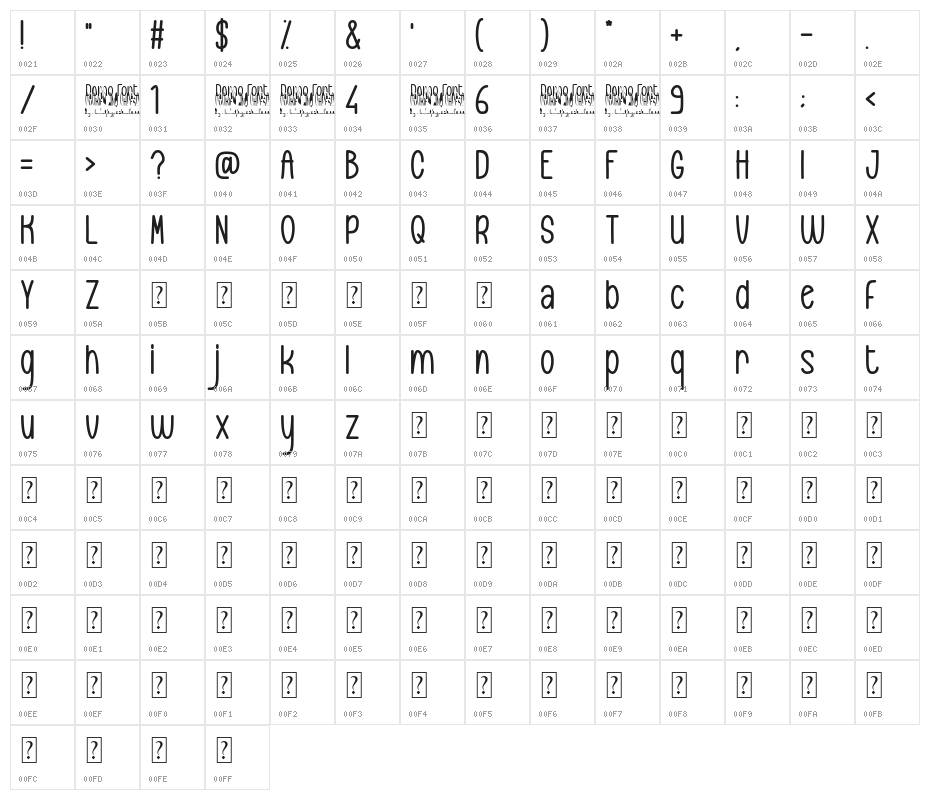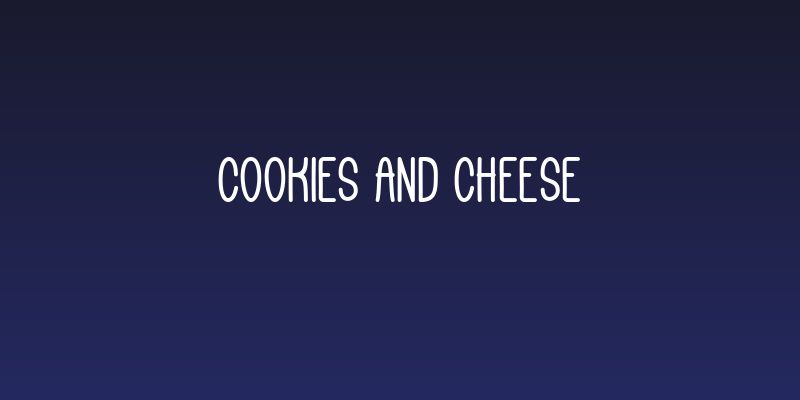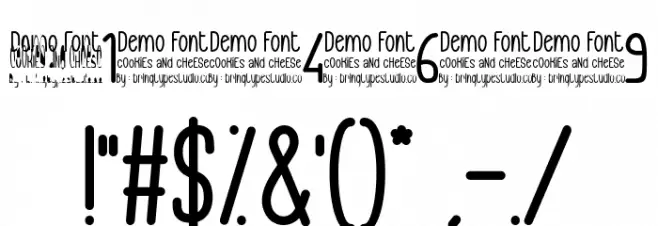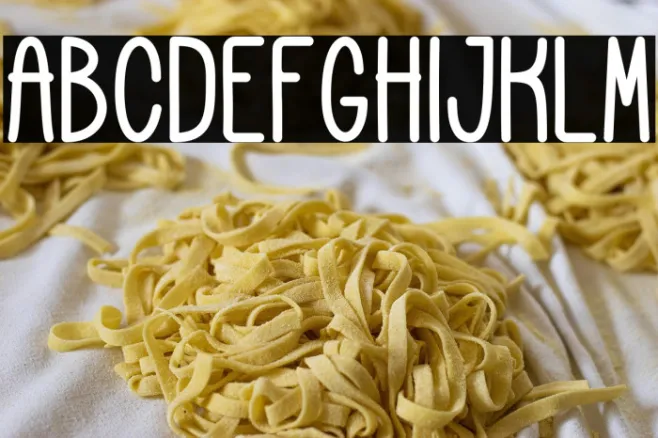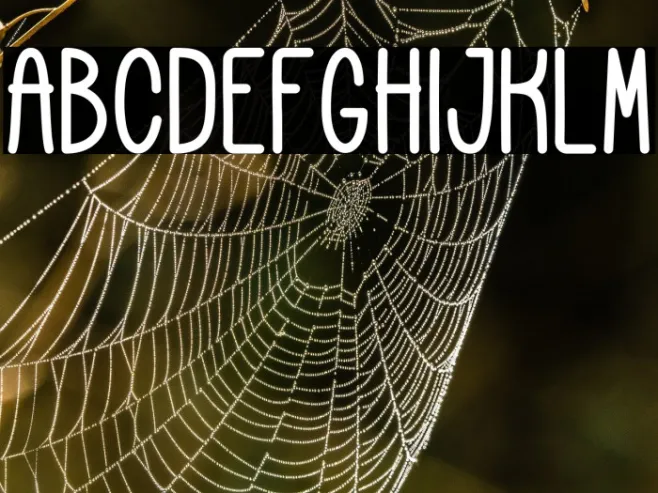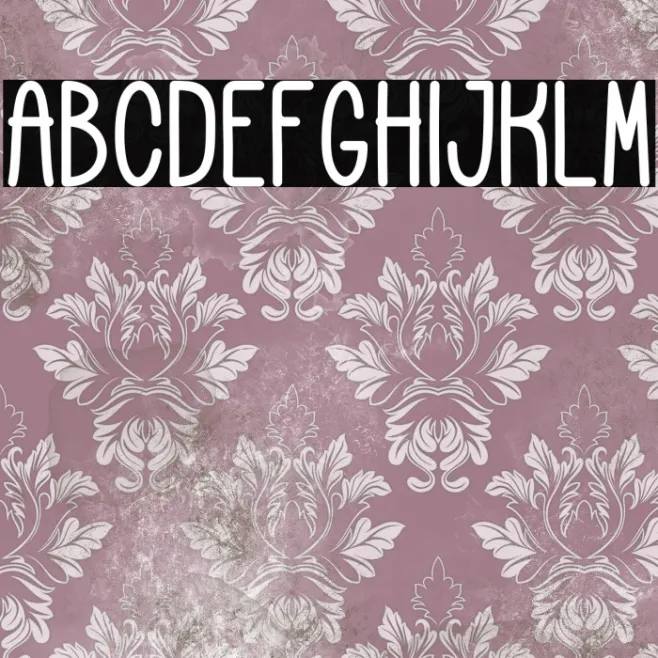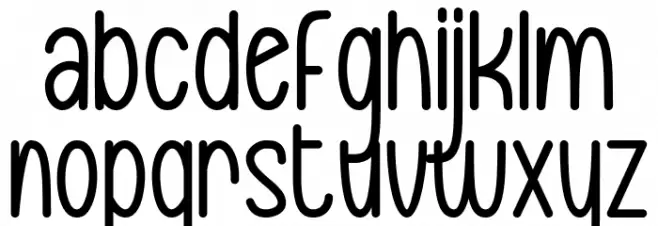
Cookies and Cheese Font
Cookies and Cheese Description
A playful, handwritten font with rounded edges and a casual style, suitable for informal and fun designs.
| Overall Style | Casual, Fun |
| Proposed Projects | Greeting cards, children's books, playful branding. |